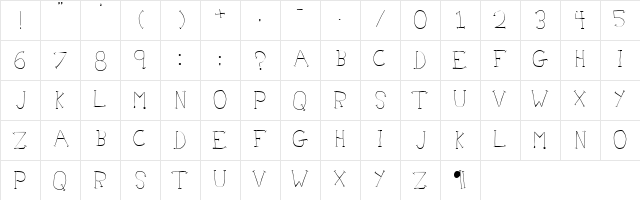
Doctor Azul Regular
Design Context for Doctor Azul Typeface
Doctor Azul offers clean, dependable letterforms without strong stylistic allegiance, making it a practical choice for designers who need flexibility.